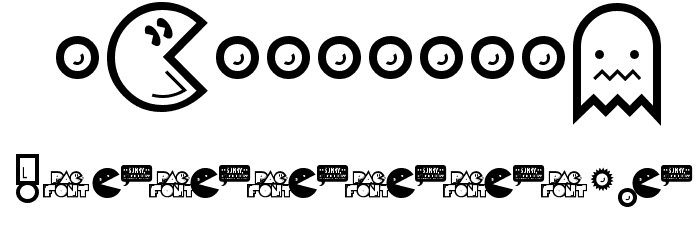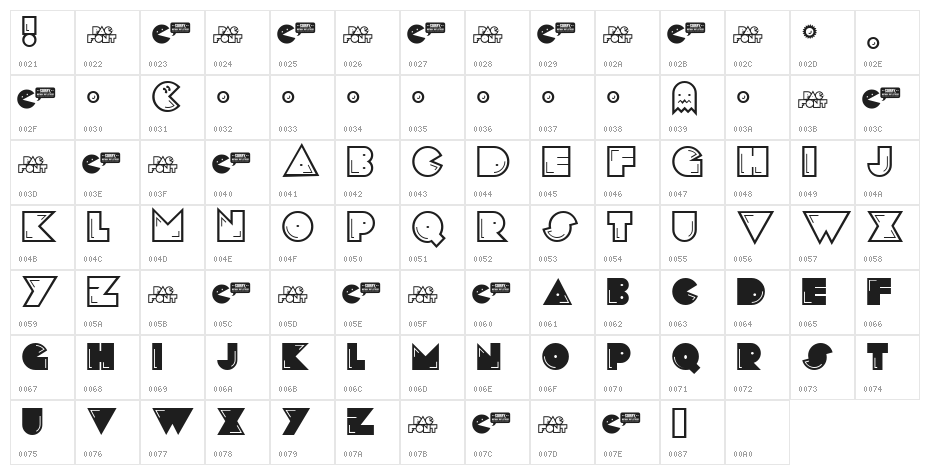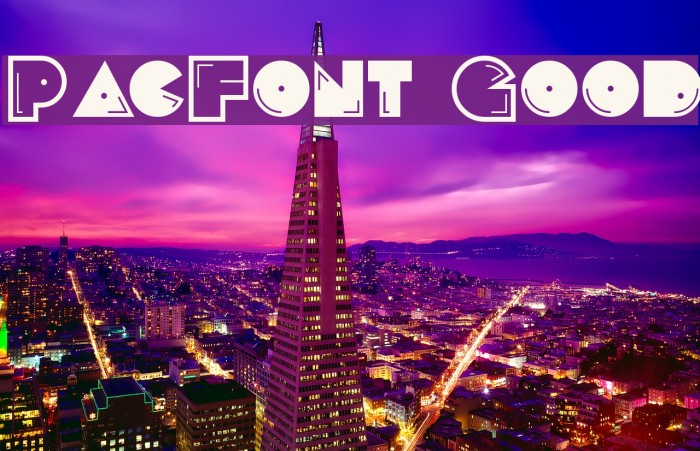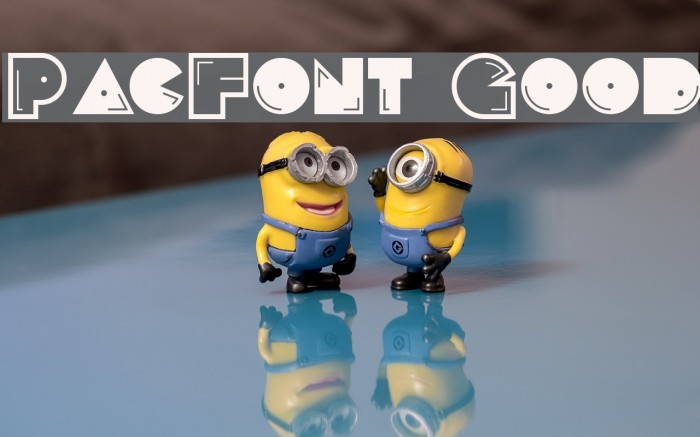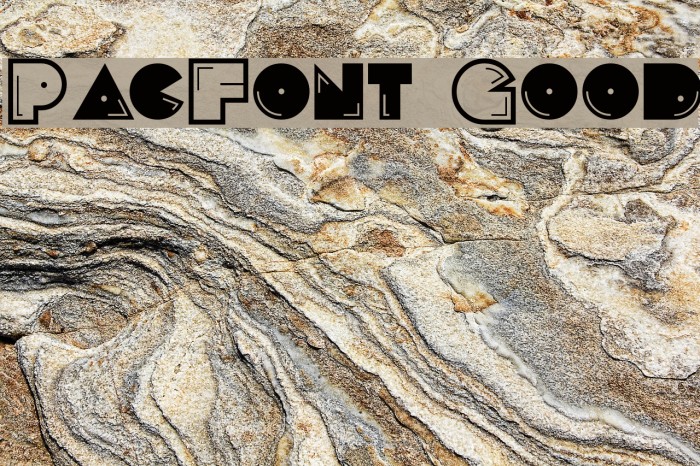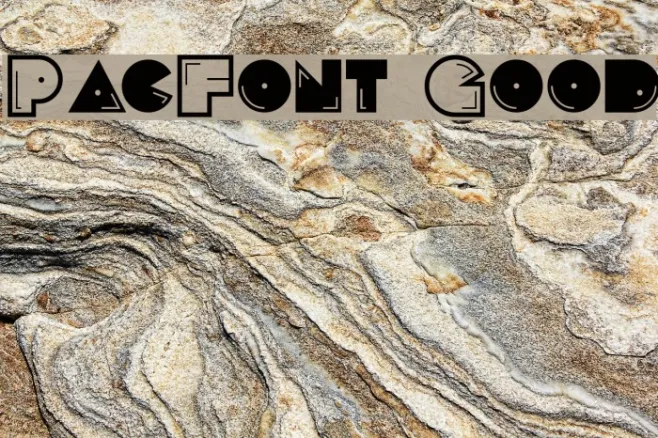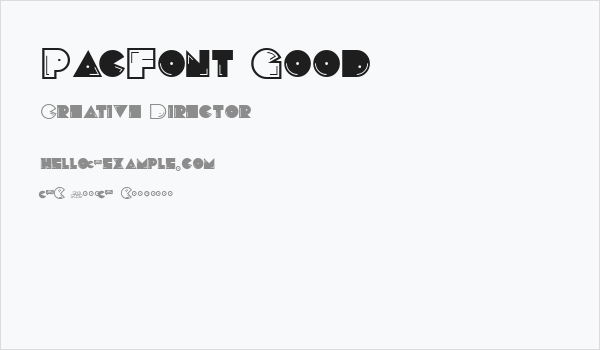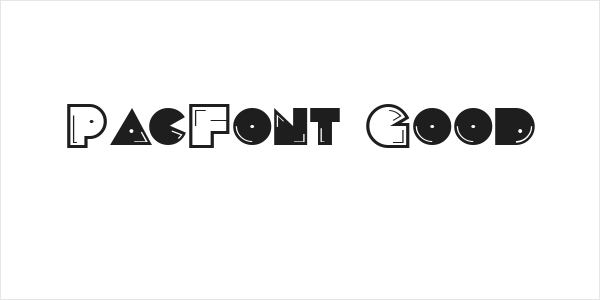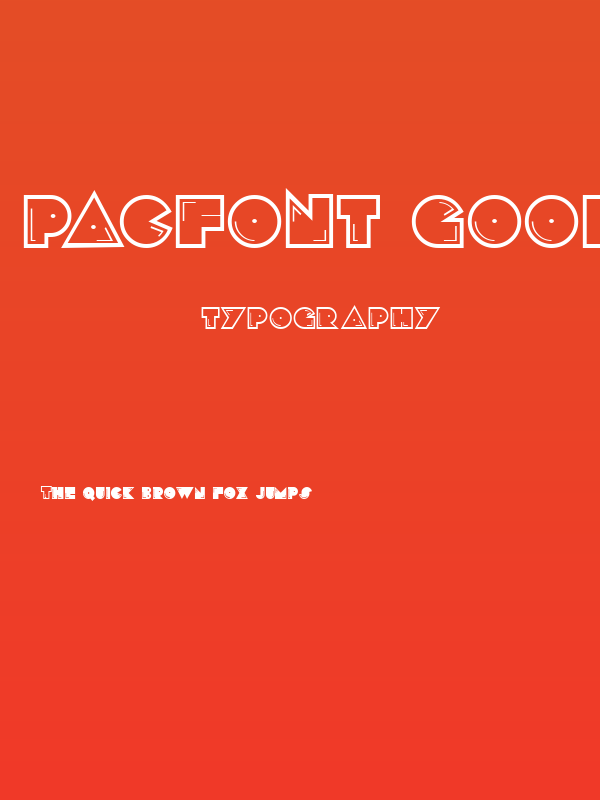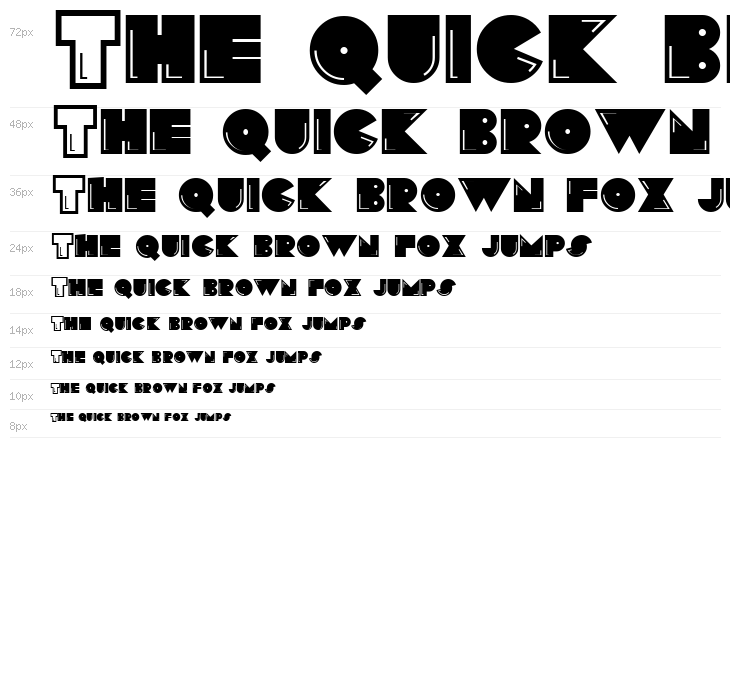
PacFont Good Font
PacFont Good Description
This playful and bold font draws inspiration from classic arcade games, featuring geometric shapes and a sense of movement. The uppercase letters are designed with sharp angles and distinct cutouts, creating a dynamic and energetic feel. The lowercase letters maintain the same playful style, with consistent geometric elements. Numbers and special characters are crafted to match the overall theme, adding to the font's cohesive look. This font is perfect for projects that require a retro or nostalgic touch, capturing the essence of vintage gaming culture.
| Use Case | Logos, Posters, Headlines |
| Proposed Projects | Ideal for video game designs, retro-themed posters, and playful branding. |